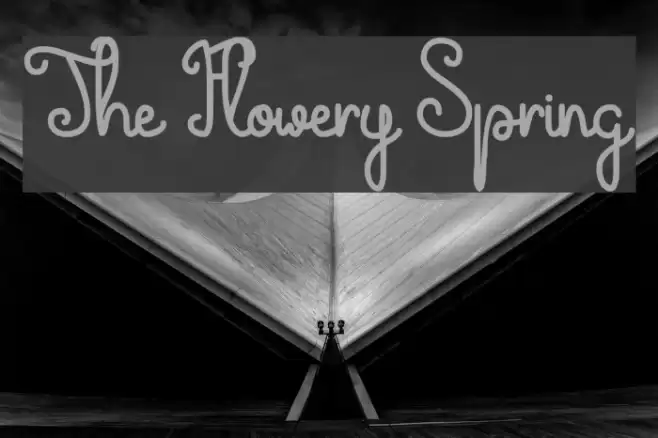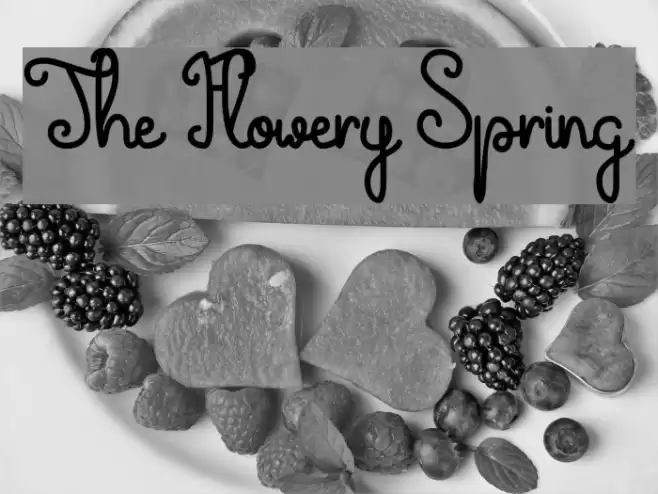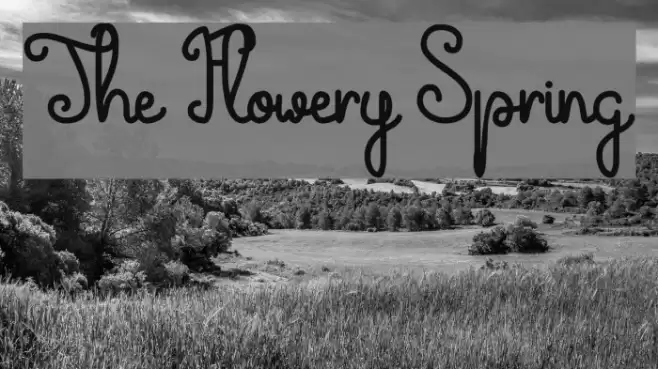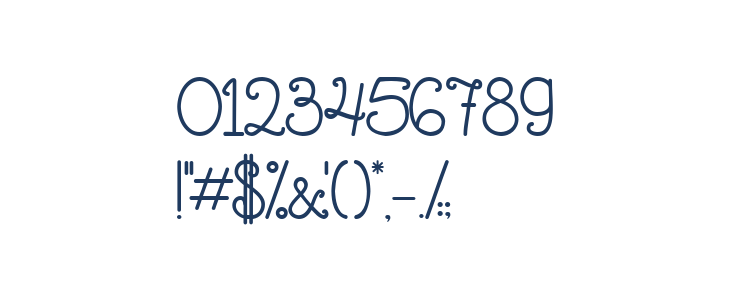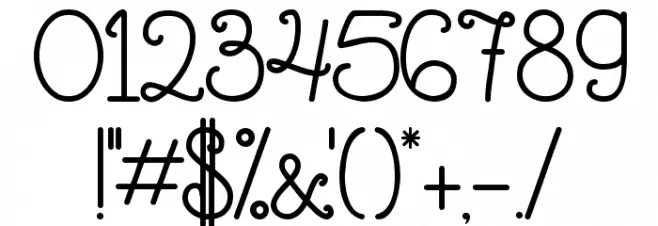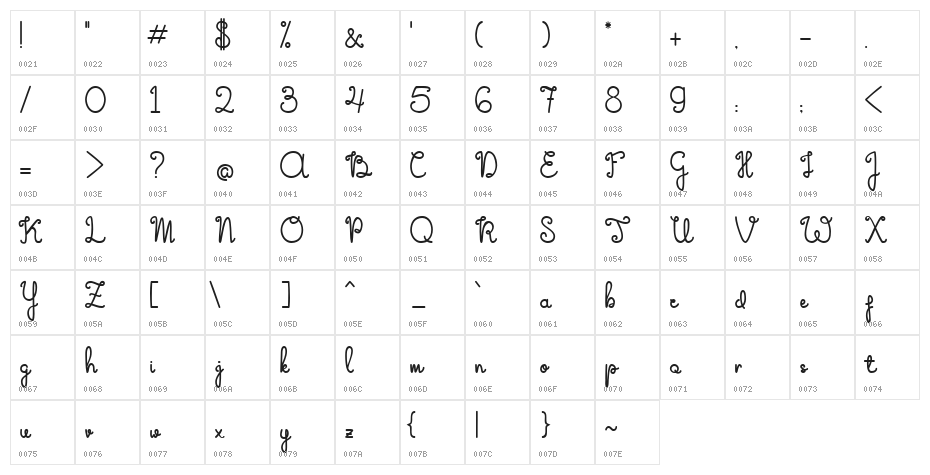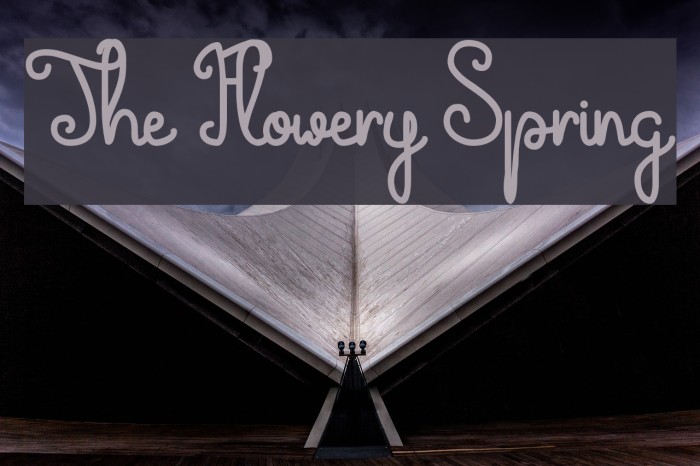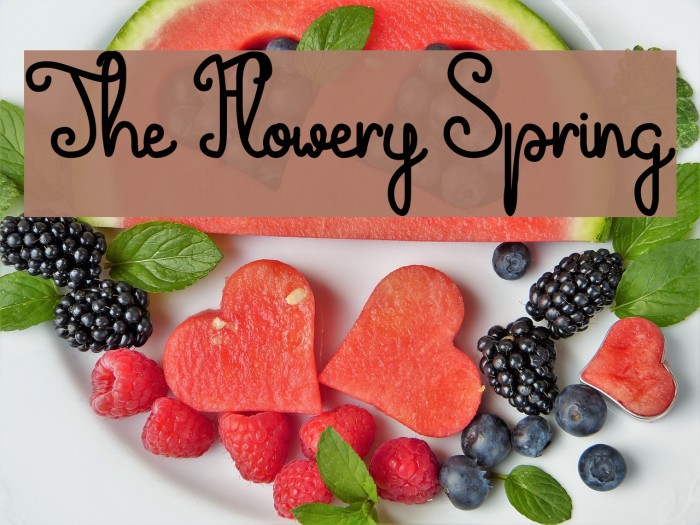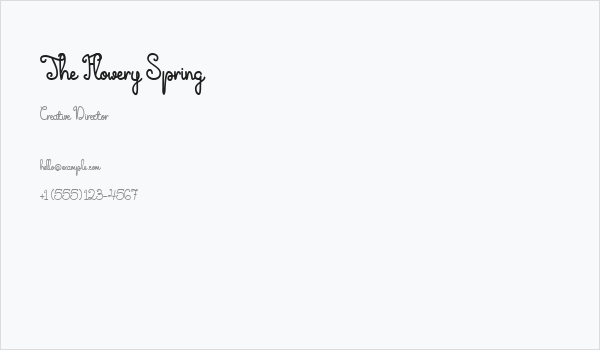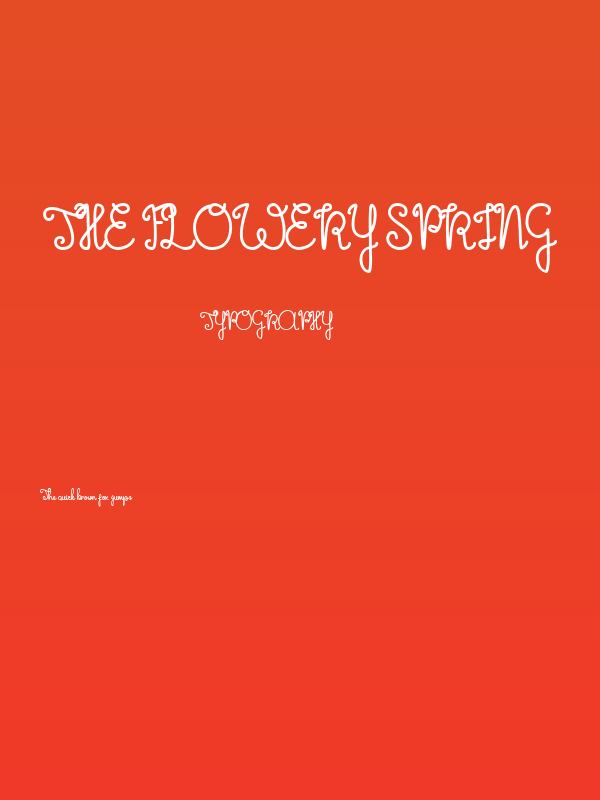
The Flowery Spring Font
The Flowery Spring Description
This font features a whimsical and playful script style, characterized by its looping, interconnected letters that mimic the fluidity of handwriting. The uppercase letters are tall and elegant, with decorative swirls that add a touch of sophistication. The lowercase letters maintain a consistent flow, enhancing readability while retaining an artistic flair. Numbers and special characters are designed to match the overall aesthetic, ensuring a cohesive look across all text. The font's unique style makes it ideal for creative projects that require a personal touch.
A whimsical script font with looping, interconnected letters and decorative swirls from Handwritten fonts.
- Proposed Projects: Ideal for wedding invitations, greeting cards, personal branding, and creative projects that require a personal touch.
- Use Case: Logos, Invitations, Greeting Cards